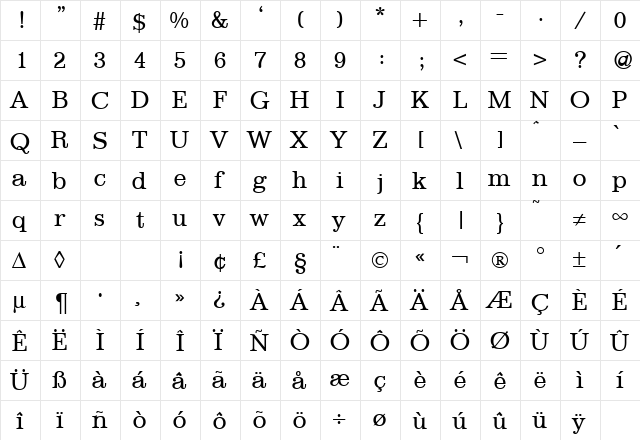
Immaculate Regular
Design Context for Immaculate Typeface
Immaculate is a composed and adaptable typeface that performs quietly and consistently across a wide range of design contexts.